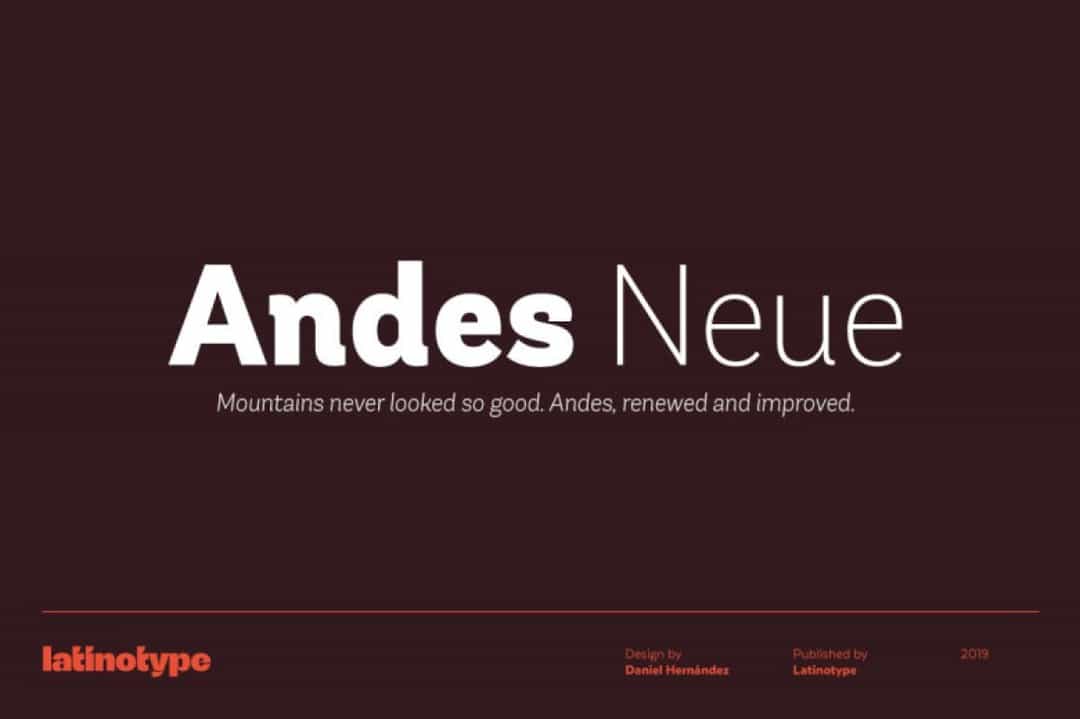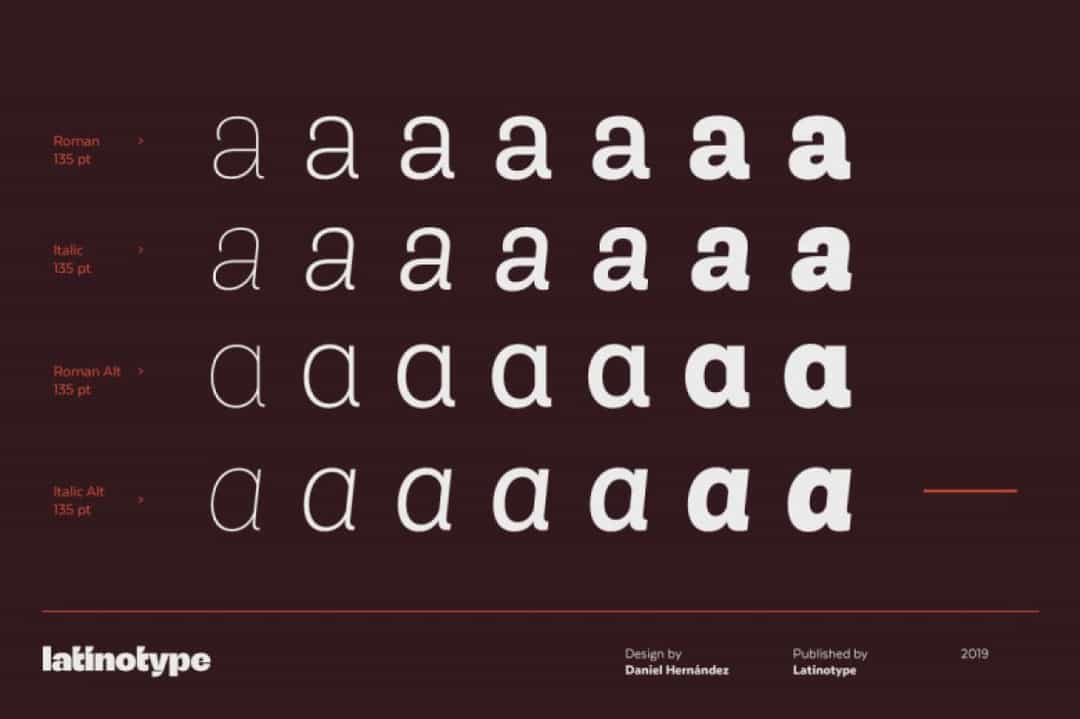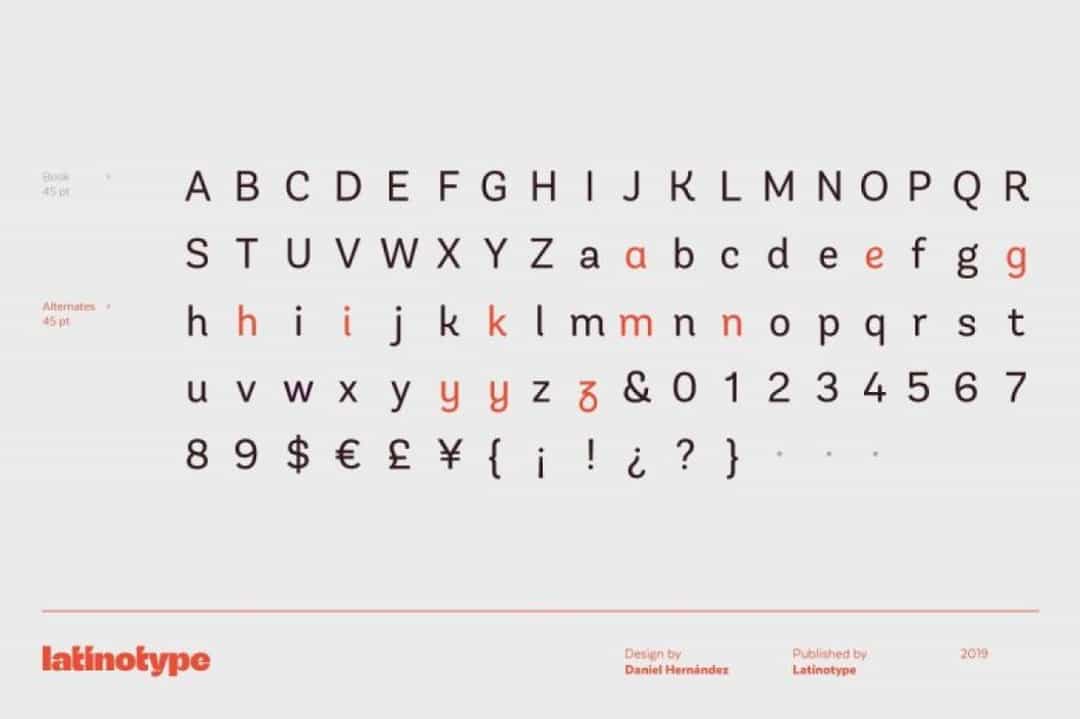
Andes Neue Sans Font is more extensive than its predecessor with 759 characters supporting 219 Latin-based languages from across 212 countries. There are four variations available to complement andes Neue’s larger character set – Alt1 has many similarity to Andes Original’s (yet more aesthetically pleasing); Alt2 uses alternate fonts as default glyphs; while Alt3 provides an eclectic set of characters.